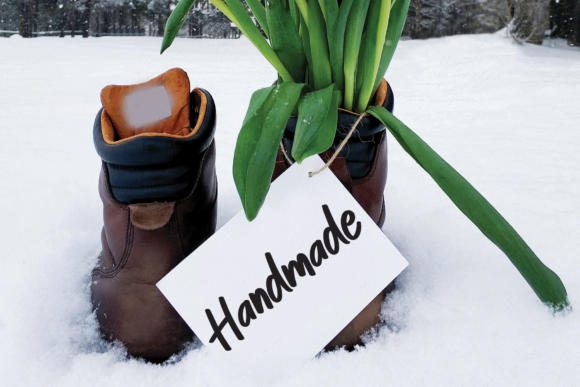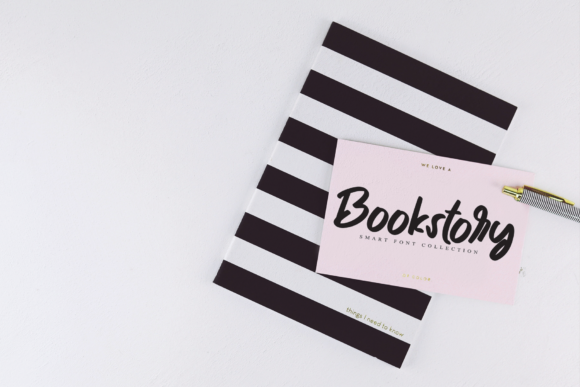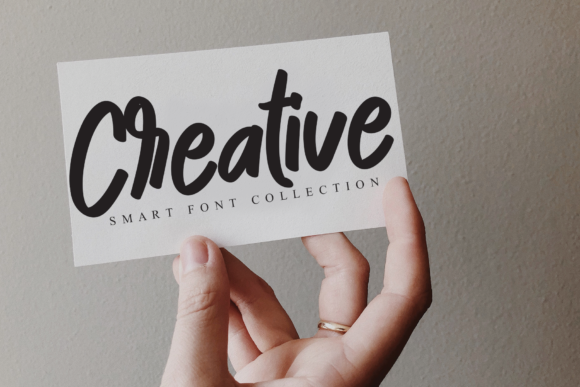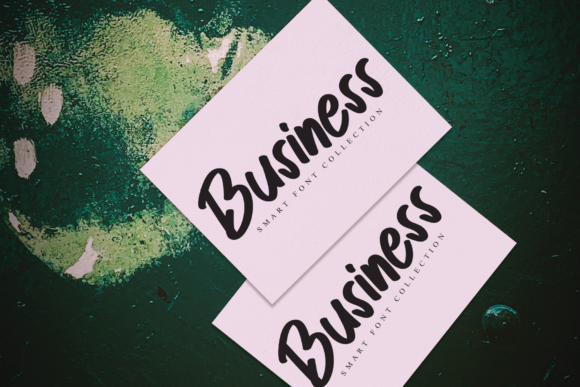
Introducing Educations Font: A Laid-Back and Whimsical Script Font
Are you tired of using the same old fonts in your designs? Look no further than Educations Font, a laid-back and whimsical script font that’s sure to add a touch of personality to any project. With its unique blend of elegance and playfulness, Educations Font is a wonderful asset to any font library, and has the potential to enhance any creation.
The Characteristics of Educations Font
Educations Font is a script font that exudes a sense of carefree elegance. Its flowing lines and curves give it a whimsical feel that’s perfect for designs that need a touch of personality. The font is highly legible, making it suitable for use in a variety of contexts, from headings and titles to body text and more.
What Makes Educations Font So Versatile?
One of the things that sets Educations Font apart from other script fonts is its versatility. Whether you’re working on a design project for a children’s book, a craft project, or a marketing campaign, this font is sure to fit the bill. Its laid-back vibe makes it perfect for designs that need to feel approachable and friendly, while its elegant lines ensure that it always looks polished and professional.
Educations Font is a dream come true for designers and crafters who are looking for a font that can add a touch of whimsy to their work. Whether you’re creating invitations, greeting cards, or social media graphics, this font is sure to make your designs stand out. Its unique blend of elegance and playfulness makes it perfect for a wide range of projects, from DIY crafts to professional design work.
Tips for Using Educations Font
To get the most out of Educations Font, here are a few tips to keep in mind:
- Use it for headings and titles to add a touch of personality to your designs.
- Pair it with a sans-serif font for a bold and modern look.
- Don’t be afraid to get creative and try out new and unusual design ideas.
The Benefits of Using Educations Font
There are many benefits to using Educations Font in your designs. Here are just a few:
- Unique and eye-catching: Educations Font is a one-of-a-kind font that’s sure to make your designs stand out.
- Highly legible: The font is easy to read, making it perfect for use in a variety of contexts.
- Versatile: Educations Font can be used for a wide range of projects, from DIY crafts to professional design work.
- Elegant and playful: The font has a unique blend of elegance and playfulness that’s sure to add a touch of personality to any design.
In conclusion, Educations Font is a laid-back and whimsical script font that’s sure to be a wonderful asset to any font library. Its unique blend of elegance and playfulness makes it perfect for a wide range of projects, from DIY crafts to professional design work. Whether you’re a designer, crafter, or simply someone who loves to create, Educations Font is a must-have font that’s sure to enhance any creation.
Get Ready to Enhance Your Designs with Educations Font